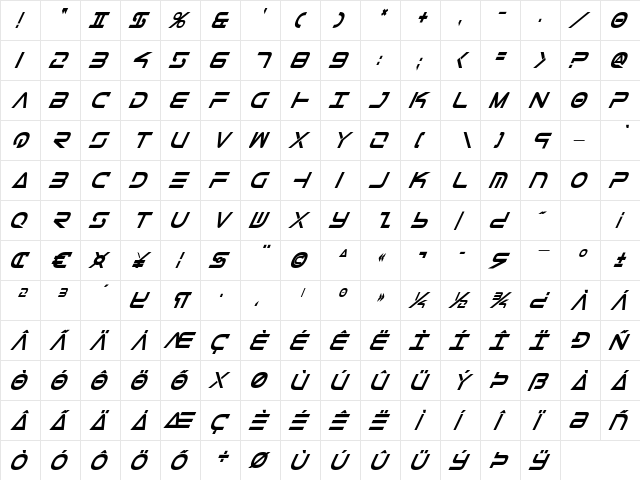
Tele-Marines Cond Bold Italic Font Preview
Design Context for Tele-Marines Cond Bold Italic Typeface
Tele-Marines Cond Bold Italic is a composed and adaptable typeface that performs quietly and consistently across a wide range of design contexts. The dynamic lean of this cut emphasises speed and emphasis in any layout. Its bold stroke weight gives it real presence on the page. The condensed width makes it efficient for tight spaces without sacrificing legibility.